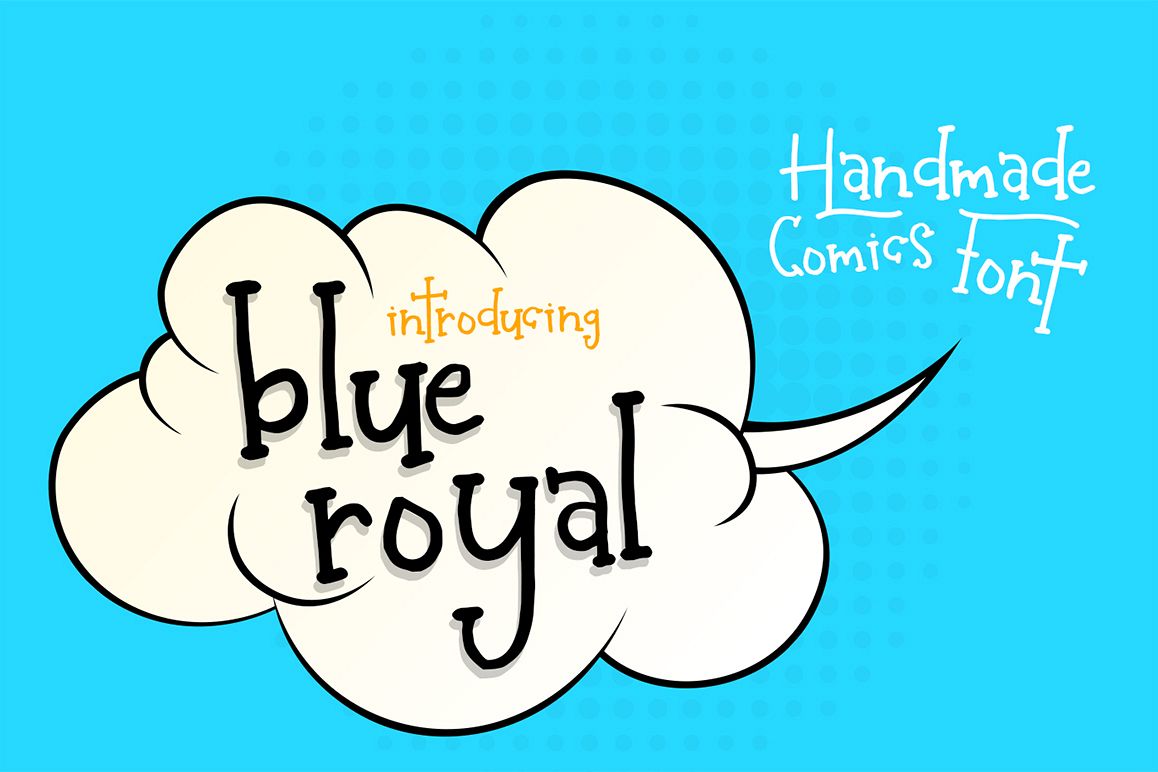
Blue Royal
INTRODUCTION :
Working on a Project about upcoming Comics ? or maybe you are preparing a training presentation for children? You are exactly in the right place, then.
BLUE ROYAL is quite lovely font that you can use in many projects / designs. Please check “great for” section below to find out more.
• Cartoon design
• Animation
• Training for child